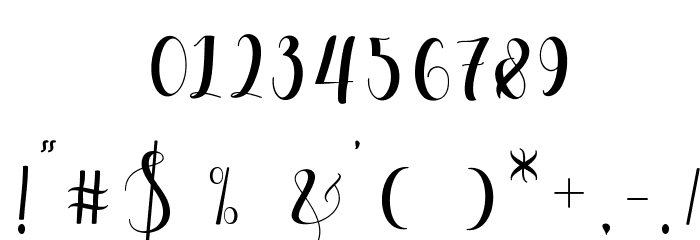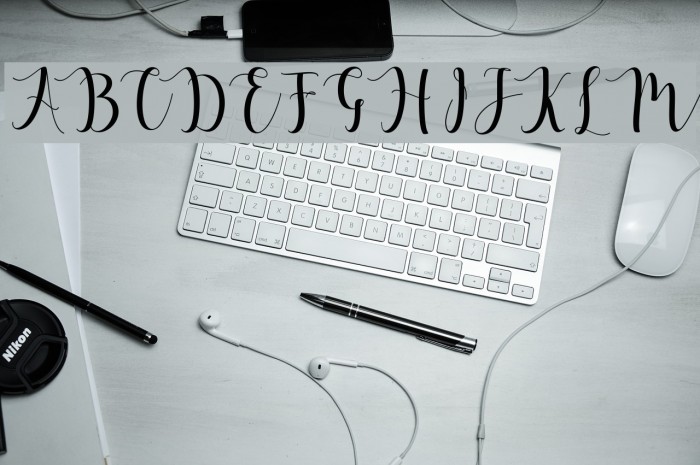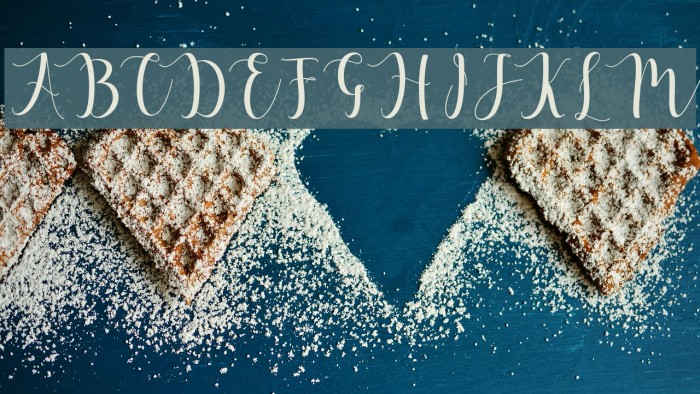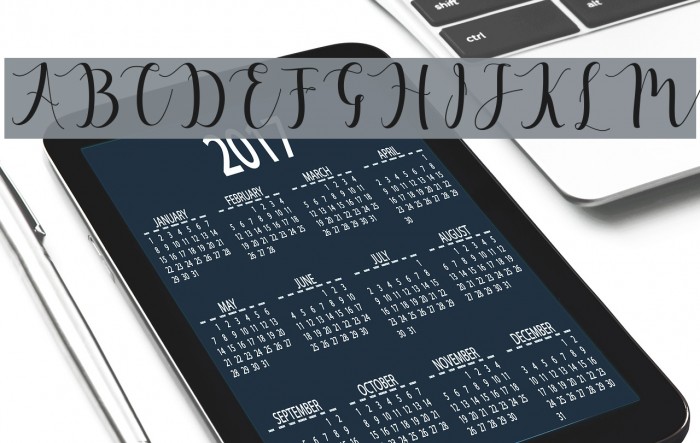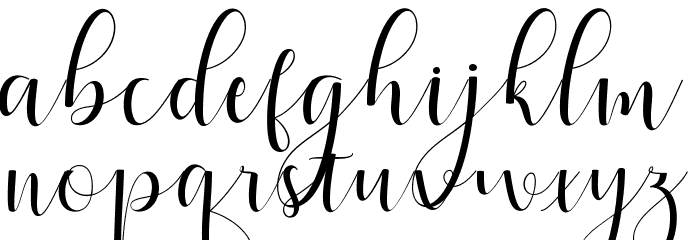
QatieliaScript Font
QatieliaScript Description
This elegant script font features flowing, interconnected characters that exude a sense of sophistication and grace. The uppercase letters are characterized by their tall, sweeping ascenders and delicate curves, while the lowercase letters maintain a consistent flow with intricate loops and flourishes. The numerals are designed with a similar flair, ensuring a cohesive look across all characters. Special characters are thoughtfully crafted to match the overall aesthetic, making this font ideal for projects that require a touch of elegance and refinement.
| Overall Style | Elegant, Sophisticated |
| Use Case | Logos, Invitations, Decorative headings |
| Proposed Projects | Ideal for wedding invitations, elegant branding, luxury product packaging, and decorative headings. |